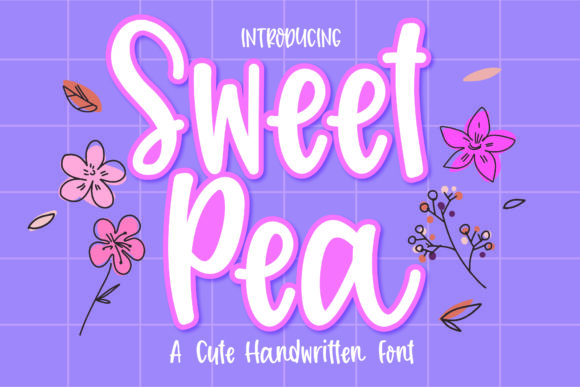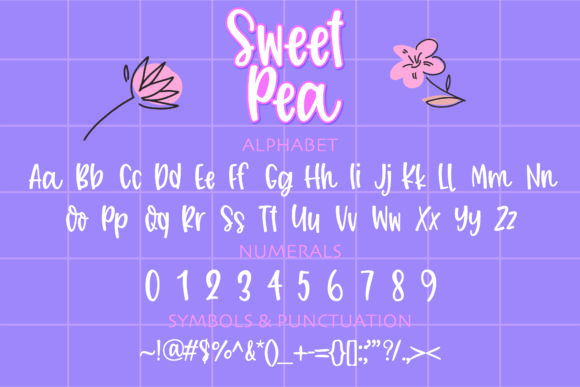
Sweet Pea Font
Sweet Pea is a playful and cool handwritten font. This font was particularly crafted for those who need a beautiful and refreshing look to their designs.